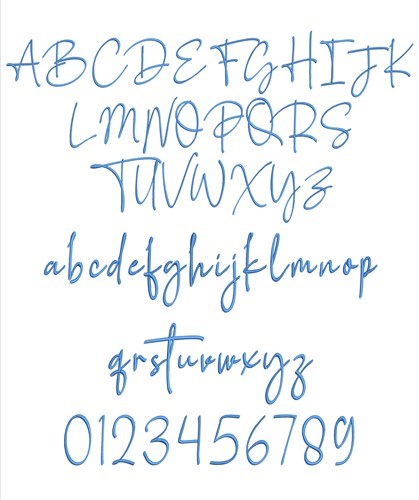
Unicorn Creatives is happy to present Southampton Embrilliance Font machine embroidery font which has Flowing script machine embroidery font ideal for personalized projects on items like tote bags. The soft blue stitching enhances its visual appeal. Available in BX font and Embrilliance format. included. If you would like to view more embroidery fonts and alphabets please search our embroidery fonts page.